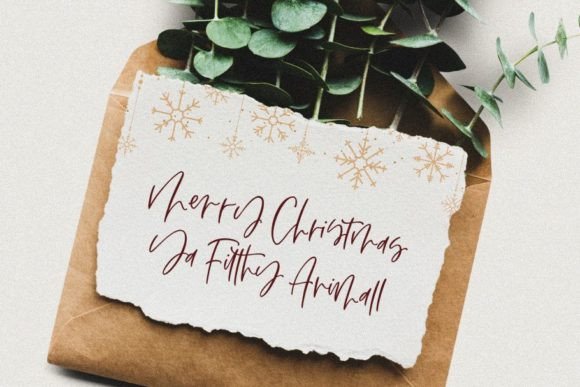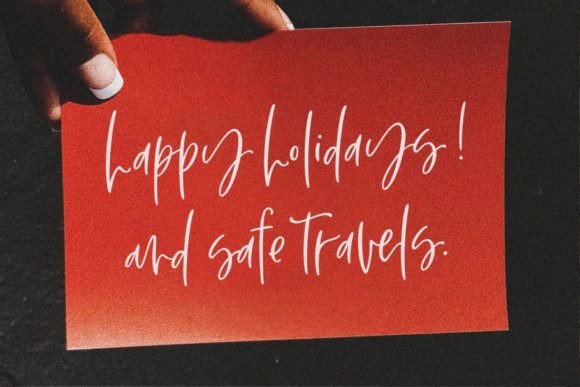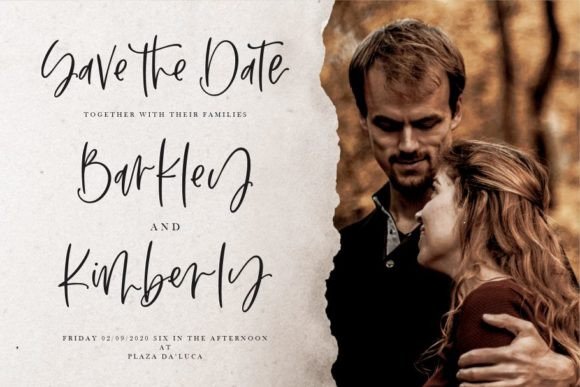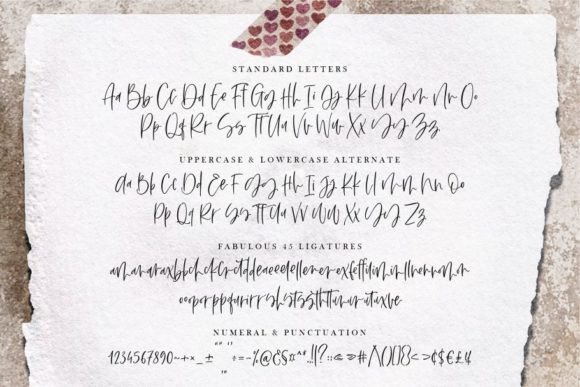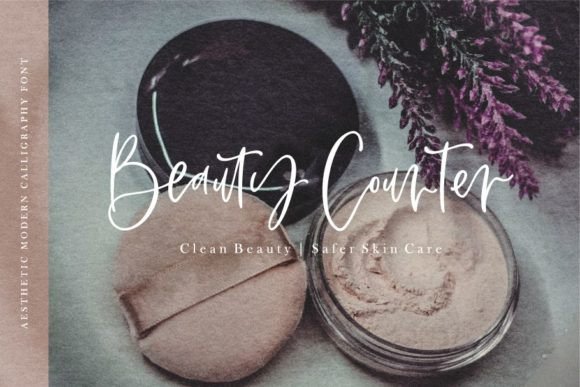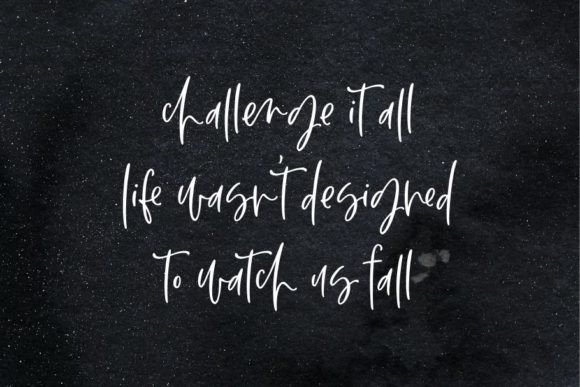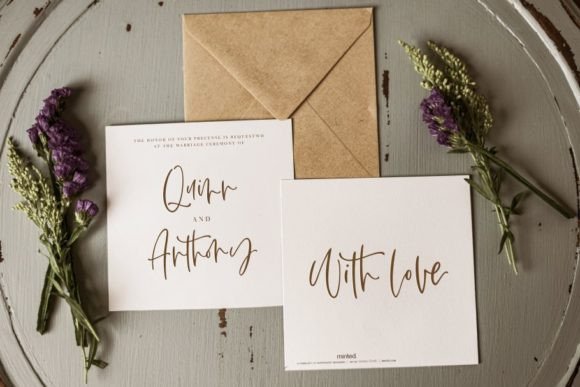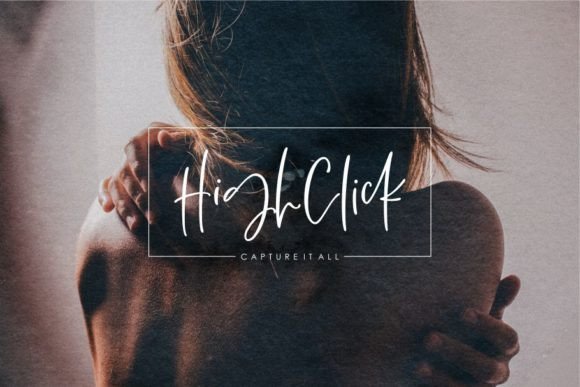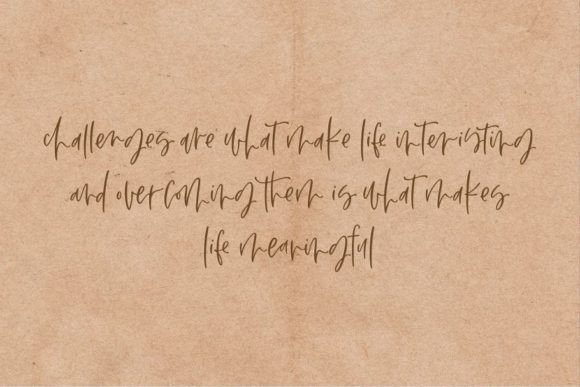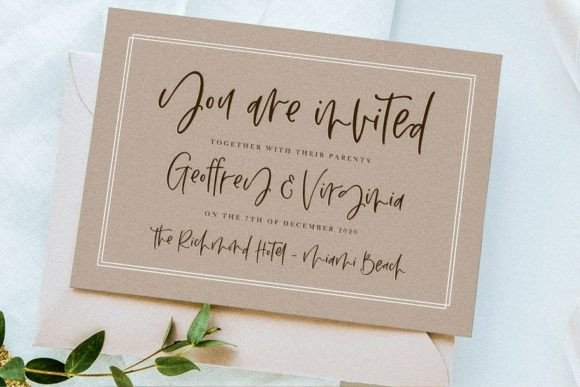
Aesthetic Font
“Aesthetic” is a modern calligraphy font that effortlessly brings a natural and handcrafted look to your design projects. If you’ve ever wondered how to achieve a natural and organic flow in your designs, “Aesthetic” is the answer you’ve been seeking. This versatile font can add a unique and personal touch to a wide range of visual needs, including signatures, logos, watermarks for photography studios, headlines, wedding invitations, and more.
The standout feature of “Aesthetic” is its ability to create a natural flow and feel in your designs. The calligraphic style of this font captures the essence of handwriting, adding an authentic and organic quality to your text. Whether you’re designing a signature, a logo, or a wedding invitation, “Aesthetic” ensures that your work exudes a genuine and handcrafted appeal.
The font’s versatility is a key strength. It can adapt seamlessly to various design applications and aesthetics. For creating a signature that feels personal and unique, “Aesthetic” is an excellent choice. It allows you to create a distinctive mark that represents you or your brand.
In logo design, “Aesthetic” can add a touch of sophistication and authenticity. Its natural flow and calligraphic charm can help you create logos that stand out and leave a memorable impression on your audience.
For photographers and photography studios, “Aesthetic” is perfect for creating watermarks that enhance the professionalism and elegance of your work. It adds a unique touch that sets your photos apart.
Headlines and wedding invitations also benefit from the beauty of “Aesthetic.” It can transform your text into an artful expression, making your messages more engaging and memorable.
The fact that “Aesthetic” is PUA encoded means that you can easily access all of its beautiful glyphs and swashes. This feature provides you with even more creative possibilities, allowing you to customize and personalize your designs effortlessly.
In summary, “Aesthetic” is a modern calligraphy font that adds a natural and handcrafted look to your designs. Its versatility makes it suitable for various applications, including signatures, logos, watermarks for photography studios, headlines, wedding invitations, and more. With “Aesthetic,” you can achieve a unique and authentic touch in your design projects, leaving a lasting impression of elegance and artistry.